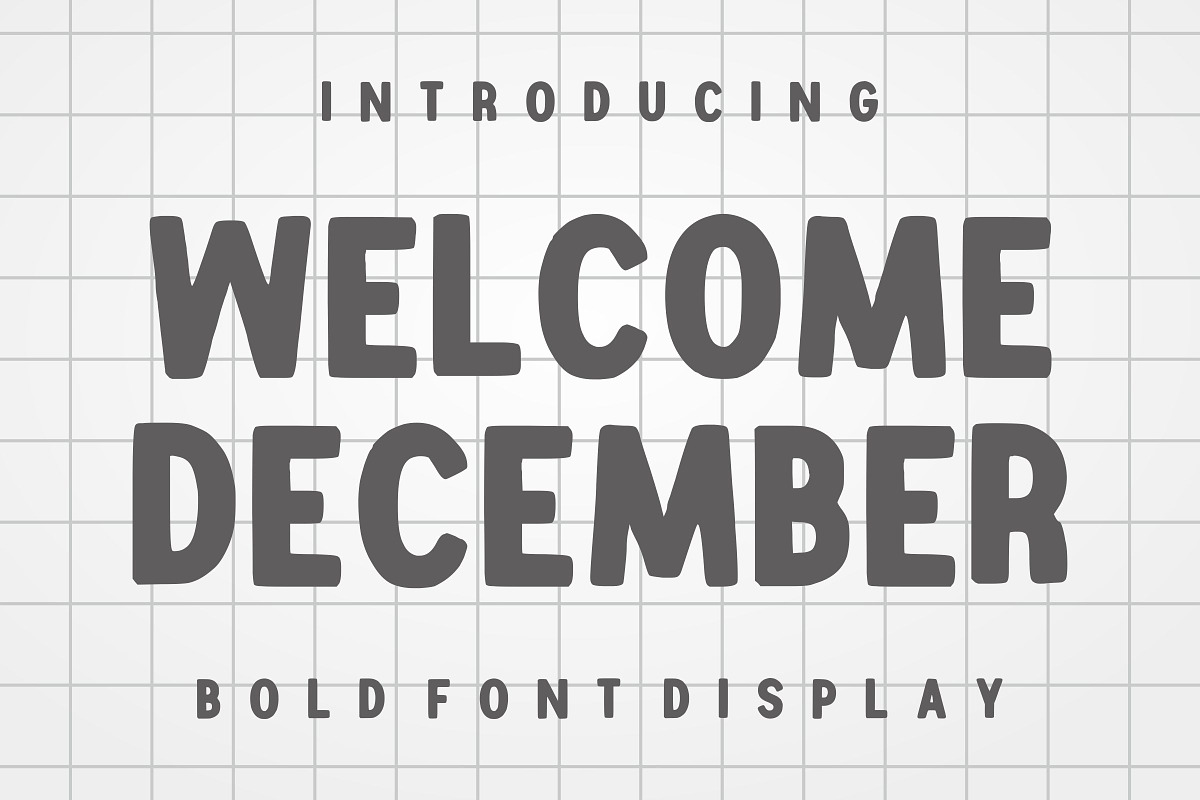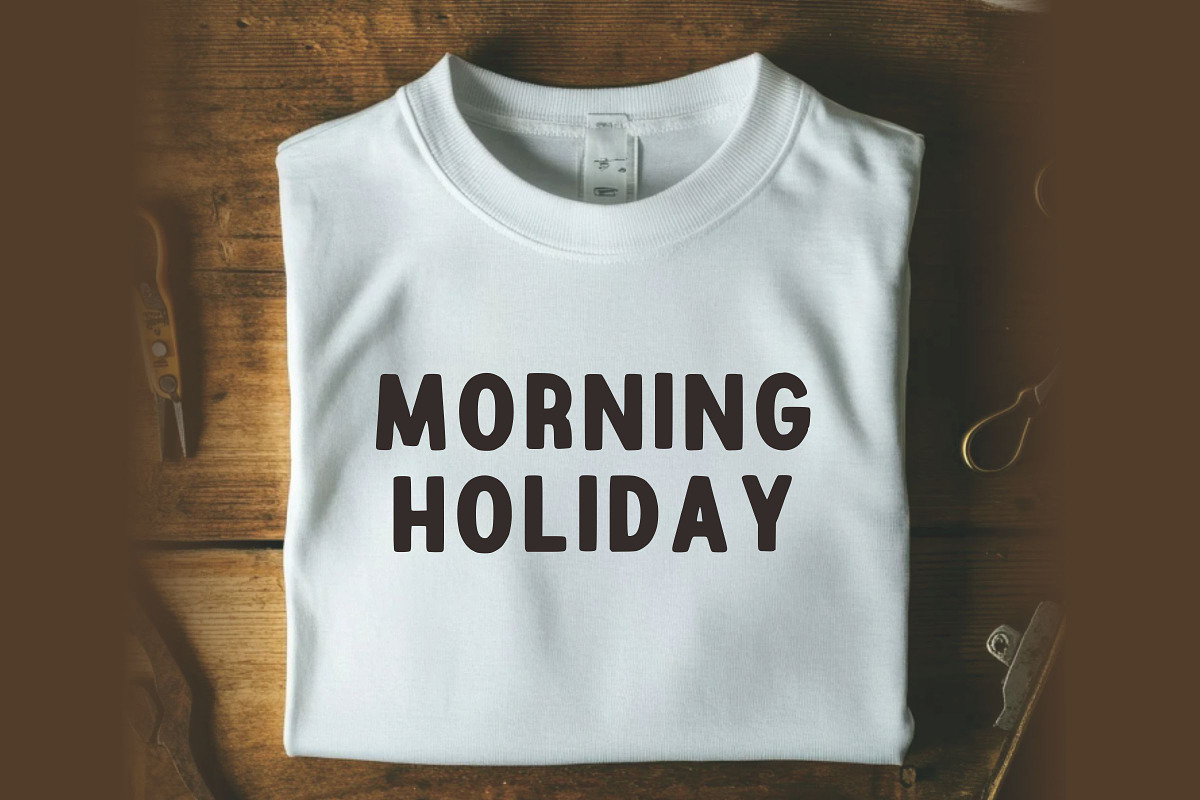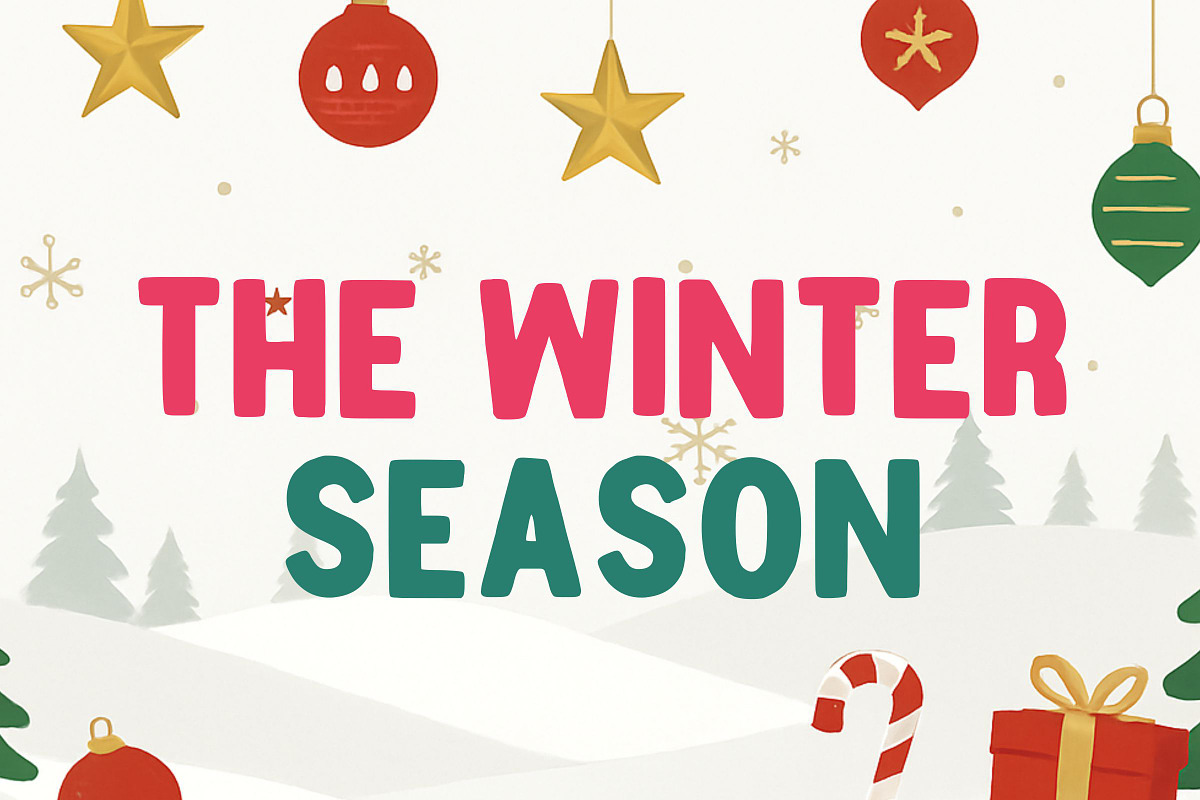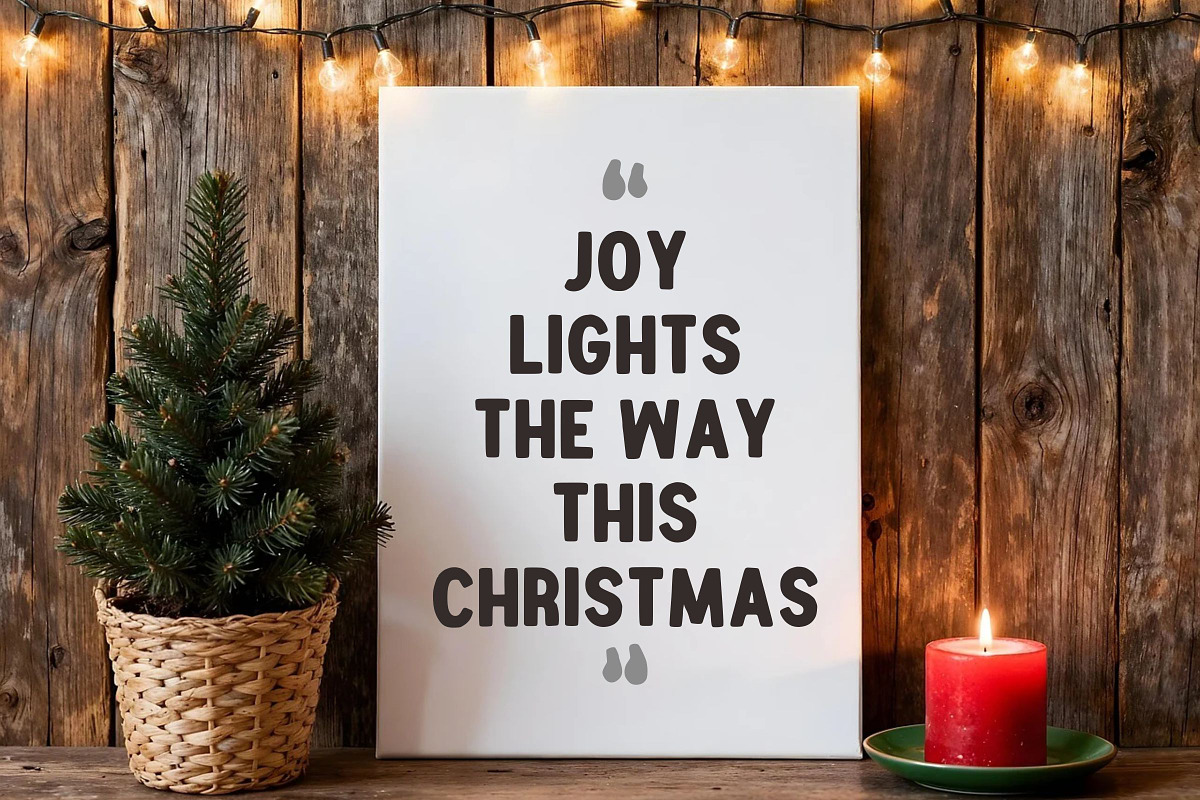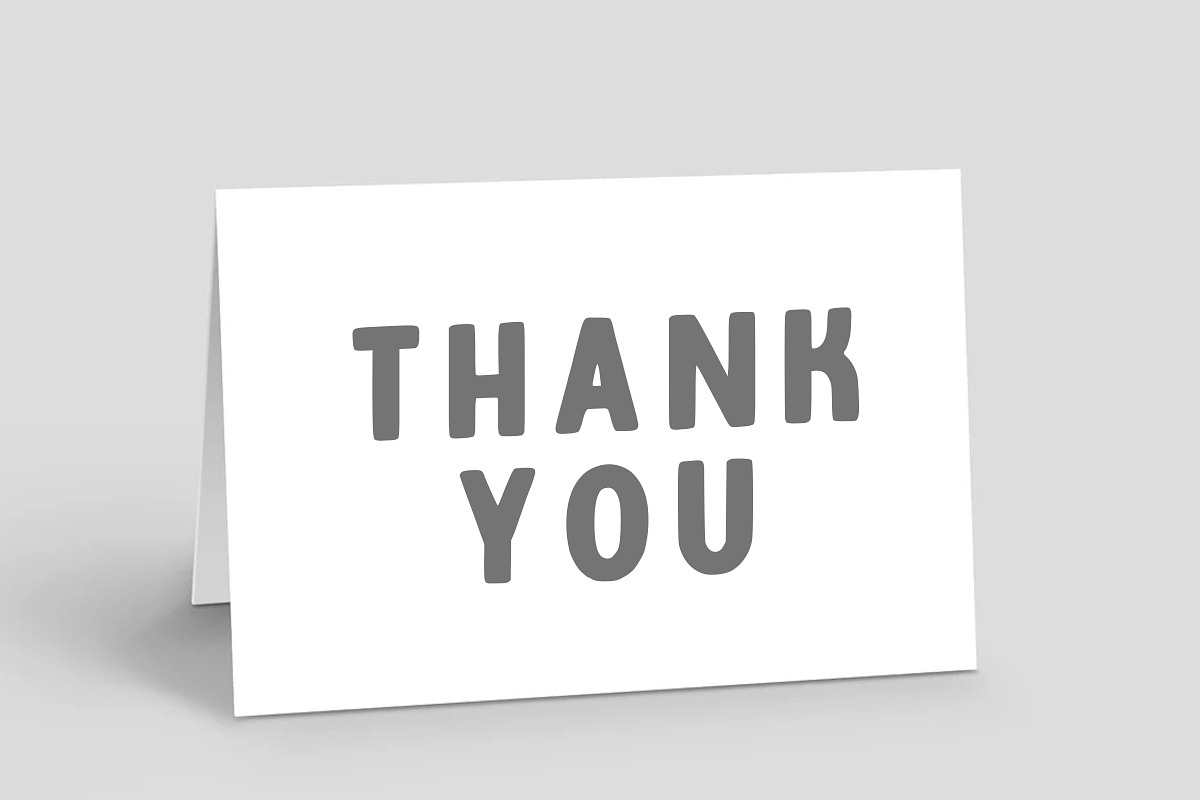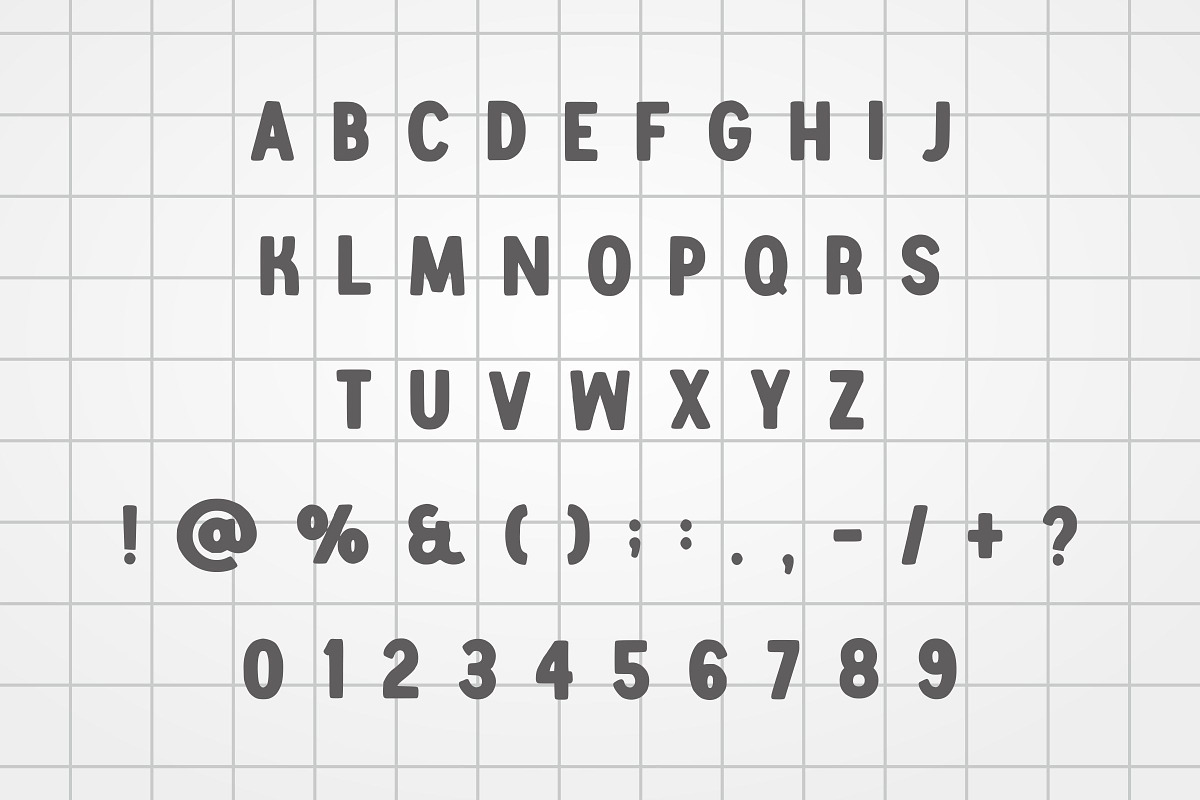
Welcome December
Welcome December Font is a heavy-duty, ultra-expressive display face designed to capture attention and deliver messages with maximum impact.
Characterized by its soft, rounded corners and chunky, approachable letterforms, this Welcome December Typeface bridges the gap between playful friendliness and professional bold design. Its thick strokes provide excellent legibility even from a distance, making it the perfect choice for festive signage, event posters, and holiday-themed branding.
When it comes to versatility, the Welcome December Font shines in high-contrast environments. It can be effortlessly paired with a clean, light-weight sans-serif for modern layouts or a delicate monoline script to create a beautiful hierarchy in greeting card designs.
To enhance its impact, try applying a subtle inner glow or a soft drop shadow to give the letters a “sticker” or “3D” feel.
Whether you are designing social media quotes for the winter season or creating bold headlines for a children’s book, this Welcome December Typeface brings a sense of warmth and reliability to every pixel.
It is especially effective for seasonal merchandise, where its bold personality can be further amplified with vibrant, festive color palettes.